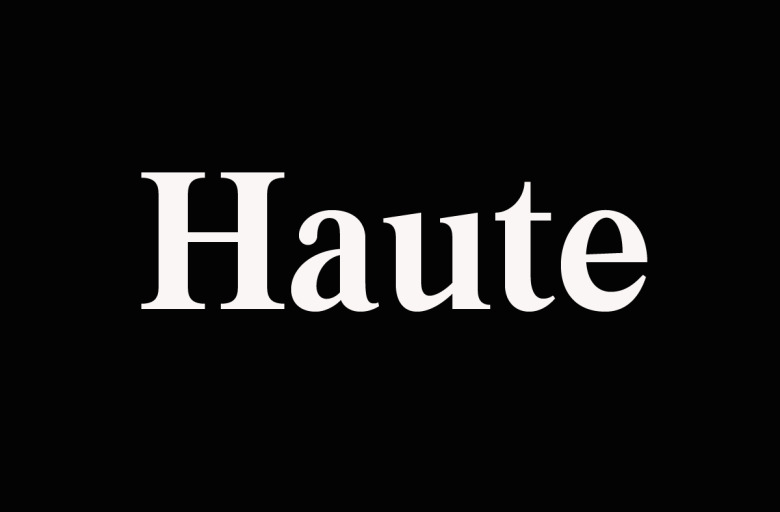
Haute Font
Haute Serif Font is a combination font between 70’s Modern or Vintage and the modern era. This font features all standard characters you would expect, plus multilingual characters and a large selection of alternate capitals.
Use the alternates to create the eye catching titles, logos, product packaging, editorial designs, advertisements & so much more!
Haute Serif Font